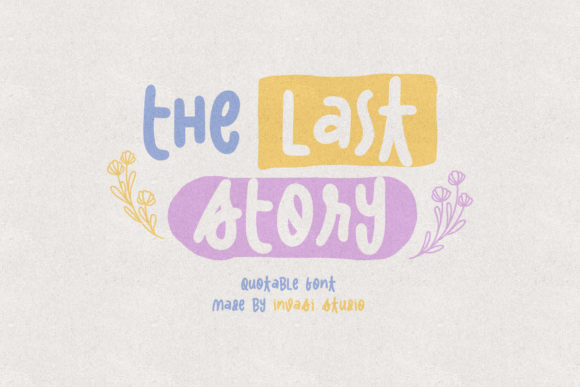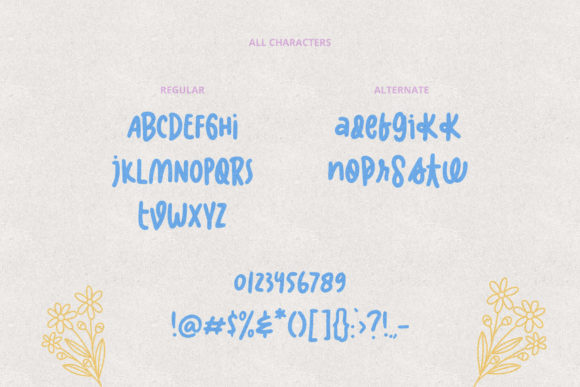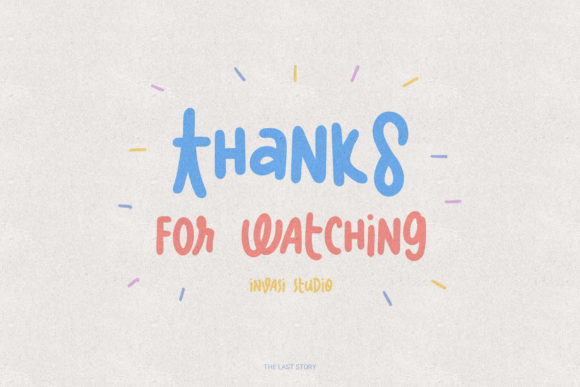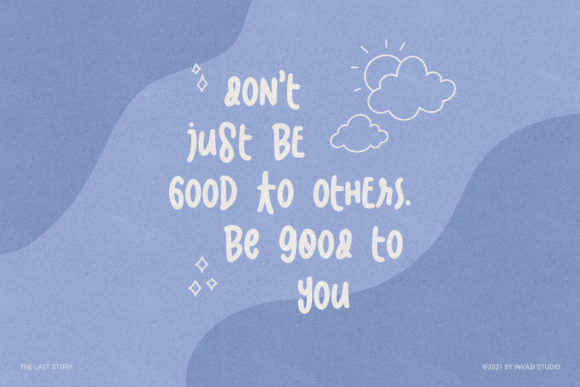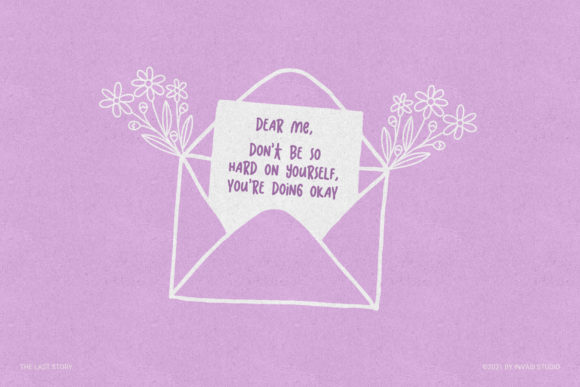
About The Last Story Font
The Last Story is a fun handwritten font. Get creative with its childlike playfulness, and use it to brighten up any kids and school project!